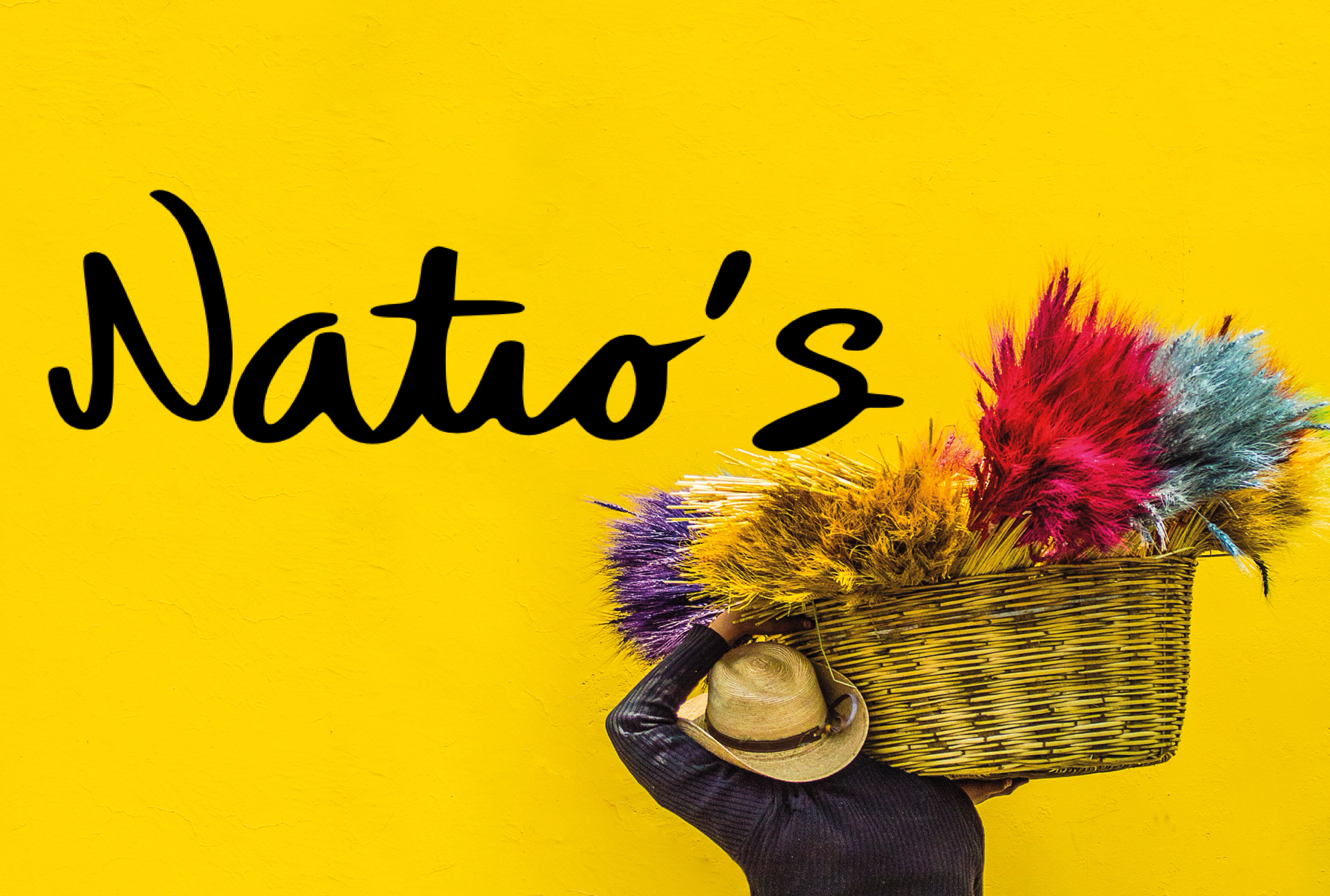
Natio’s Font + 5 FREE logos
A handwritten script font containing upper and lowercase characters, ligatures, numerals and a large range of punctuation. International characters included!
Ideal for logos, handwritten quotes, product packaging, header, poster, merchandise, social media, greeting cards and many more.
Font Features : Latin A-Z
Latin a-z
Large range of Punctuation